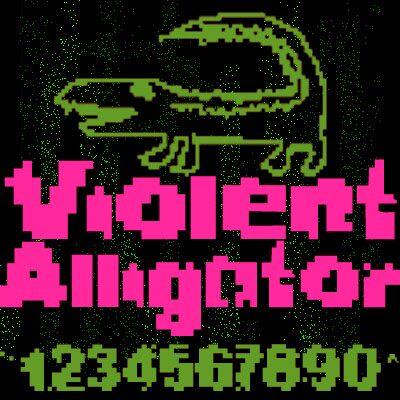
Violent Alligator by Eric Wiryanata of Deathrockstar is a free pixel display font built from blunt, square-edged blocks. Its letters have uneven, stepped profiles and a dense low-resolution construction. The shapes feel deliberately raw.
It can turn a game title into part of an on-screen arcade interface rather than neutral lettering. The coarse geometry also suits album artwork and streetwear graphics with a rough digital theme. Event flyers and entertainment branding can use the same hard-edged forms to suggest underground games, electronic music, or hacked machinery.
Violent Alligator
Eric Wiryanata
Deathrockstar